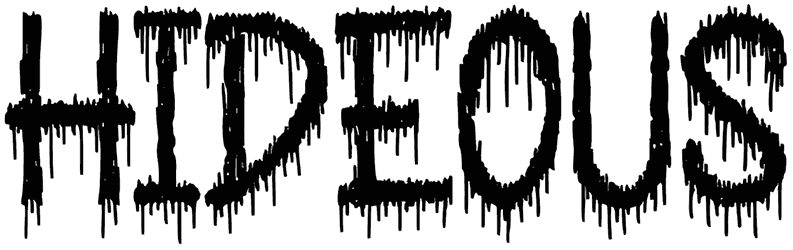
Hideous Font
Hideous can be the final stop of searching for designers who hesitate to implement their mental ideas in a terrifying format. This dripping font reflects the styles of murder and bloodshed, which can spread the dramatic and terrible feeling of a crime scene in space.
To emphasize the spooky elements in your coming projects, use it despite lacking lowercase letters. So if you want to create awesome formal posters, invitations, and greeting cards, search RB’s library for similar fonts.